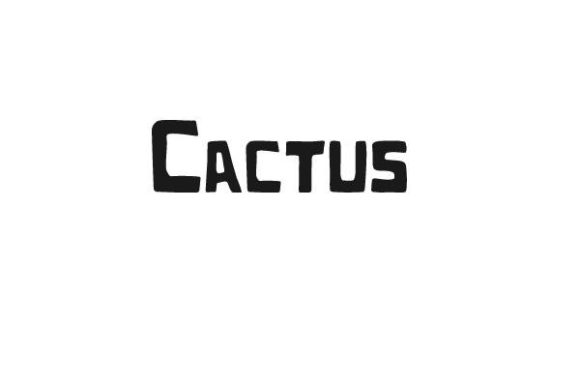
Cactus Font: The Modern and Playful Display Font for Crafters and Designers
In the world of typography, fonts play a crucial role in conveying the tone and personality of a design. For crafters and designers looking to add a touch of modernity and playfulness to their creations, the Cactus Font is an excellent choice. This squared lettered display font is perfect for those who want to make their designs stand out with a fresh and futuristic look.
What is Cactus Font?
Cactus is a modern and squared lettered display font that is designed to add a touch of edginess and playfulness to any design. Its unique and futuristic style makes it perfect for crafters and designers who want to create bold and eye-catching designs. The font’s clean lines and geometric shapes give it a modern feel that is sure to impress.
Key Features of Cactus Font
- Modern and Squared Design: The Cactus Font features a modern and squared design that gives it a fresh and futuristic look.
- Playful and Bold: The font’s playful and bold style makes it perfect for designs that require a touch of personality and whimsy.
- Geometric Shapes: The font’s geometric shapes and clean lines give it a modern and edgy feel.
- Easy to Read: Despite its bold and playful style, the Cactus Font is easy to read and understand, making it perfect for designs that require a clear message.
Use Cases for Cactus Font
The Cactus Font is versatile and can be used in a variety of design projects, including:
- Logo Design: The font’s bold and playful style makes it perfect for logo design, especially for brands that want to convey a sense of modernity and edginess.
- Poster Design: The Cactus Font is great for poster design, especially for events and promotions that require a bold and eye-catching font.
- Social Media Graphics: The font’s modern and playful style makes it perfect for social media graphics, especially for brands that want to stand out on crowded feeds.
- Crafting and DIY Projects: The Cactus Font is also great for crafting and DIY projects, such as making signs, banners, and other decorative items.
Why Choose Cactus Font?
There are many reasons why designers and crafters should choose the Cactus Font for their projects. Here are a few:
- Unique and Fresh Design: The Cactus Font features a unique and fresh design that is sure to make your designs stand out.
- Versatile: The Cactus Font is versatile and can be used in a variety of design projects.
Tips for Using Cactus Font
Here are a few tips for using the Cactus Font in your designs:
- Use it Boldly: The Cactus Font is designed to be used boldly, so don’t be afraid to experiment with different sizes and colors.
- Pair it with Other Fonts: The font pairs well with other modern and playful fonts, so feel free to experiment with different combinations.
- Use it for Headlines: The Cactus Font is perfect for headlines and titles, so use it to add a touch of personality and whimsy to your designs.
In conclusion, the Cactus Font is a modern and playful display font that is perfect for crafters and designers who want to add a touch of freshness and futurism to their designs. Its unique and geometric design makes it stand out from other fonts, and its ease of use and versatility make it a great choice for a variety of design projects.